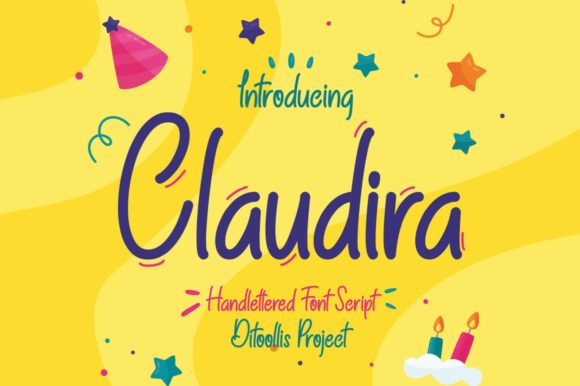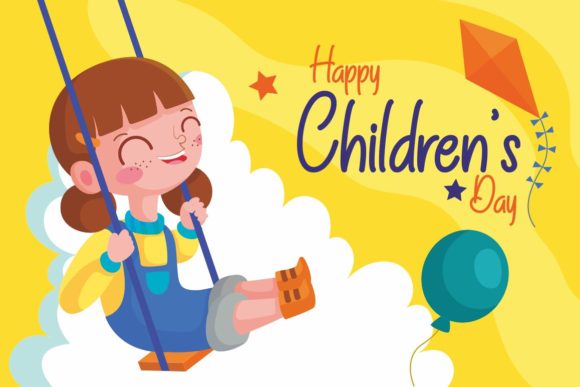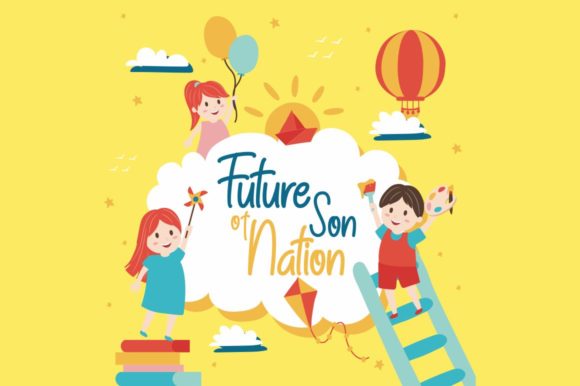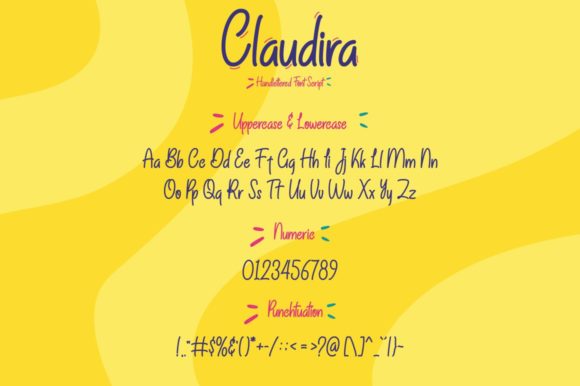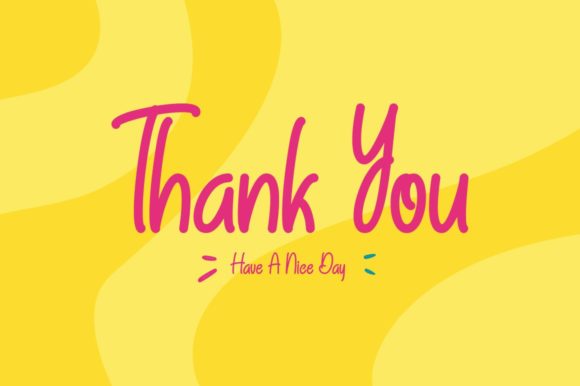
Claudira Font
Claudira is a carefully hand-lettered script, perfect for any school-themed crafts! Ignite your creativity with this playful script, and turn any design idea into a magical stanout!